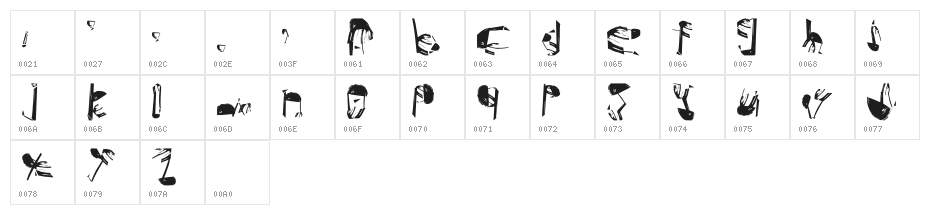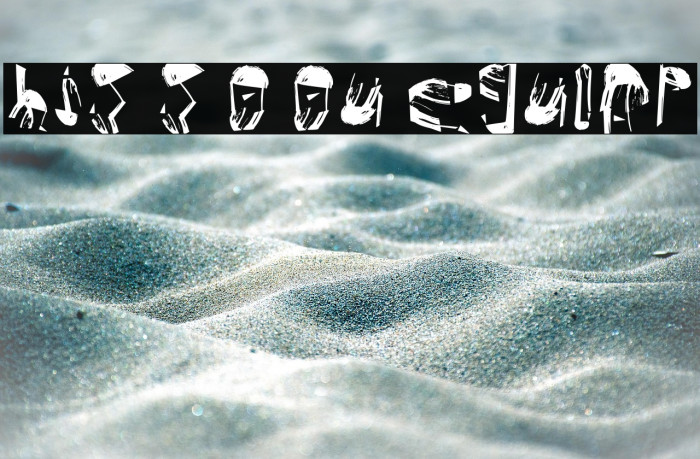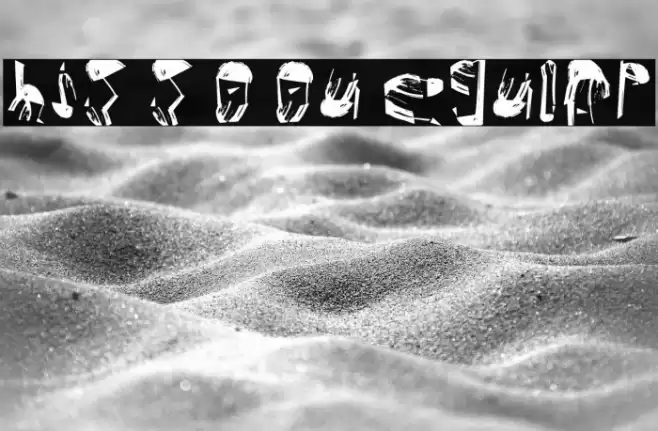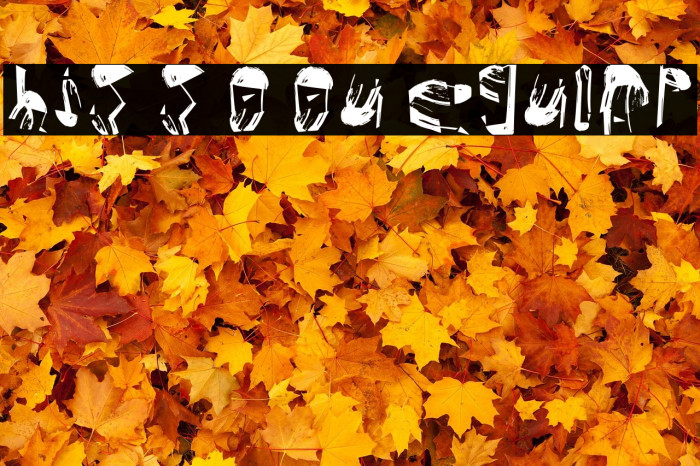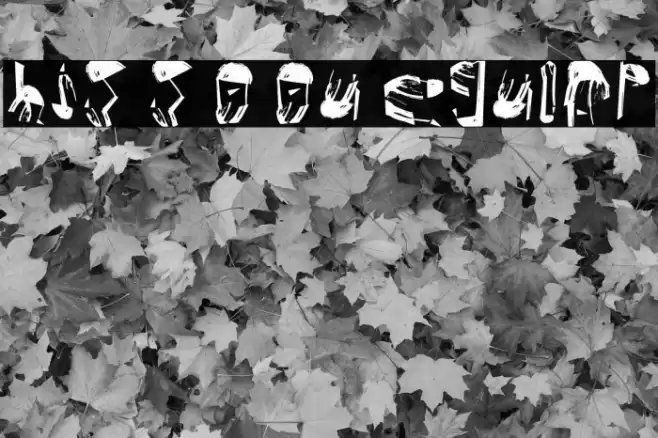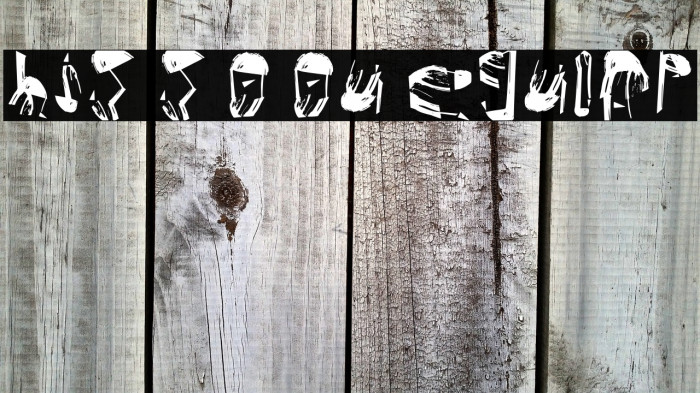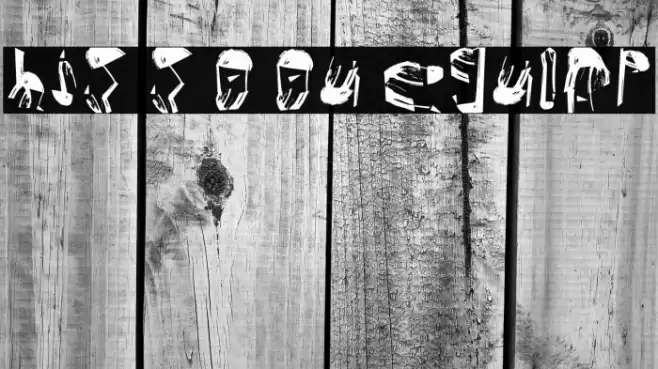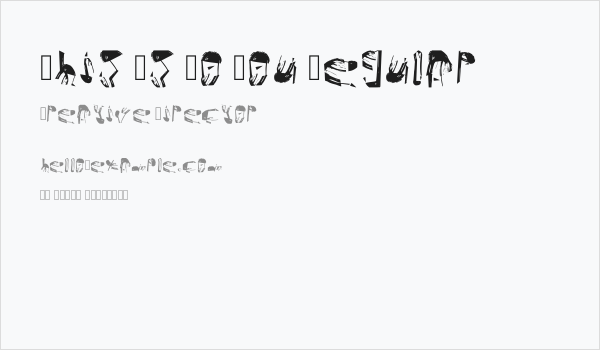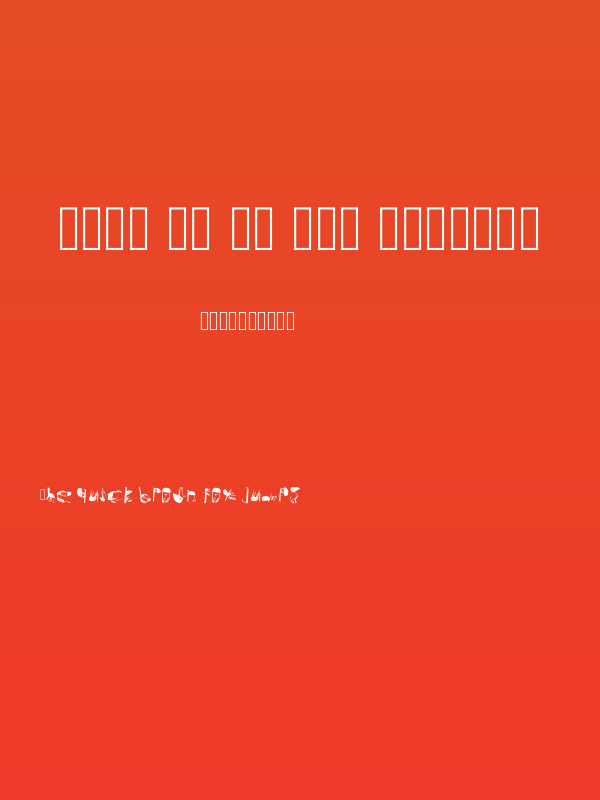
This Is So You Regular Font
This Is So You Regular Description
This font features a highly artistic and abstract design, characterized by its bold and expressive brushstroke-like appearance. Each letter seems to be crafted with a sense of movement and fluidity, giving it a dynamic and energetic feel. The uppercase and lowercase letters share a consistent style, with irregular shapes and varying stroke thicknesses that create a sense of spontaneity and creativity. The numbers and special characters follow the same artistic theme, making the entire set cohesive and visually striking. This font is ideal for projects that require a unique and eye-catching aesthetic.
| Proposed Projects | Ideal for artistic posters, creative branding, album covers, and expressive design projects. |